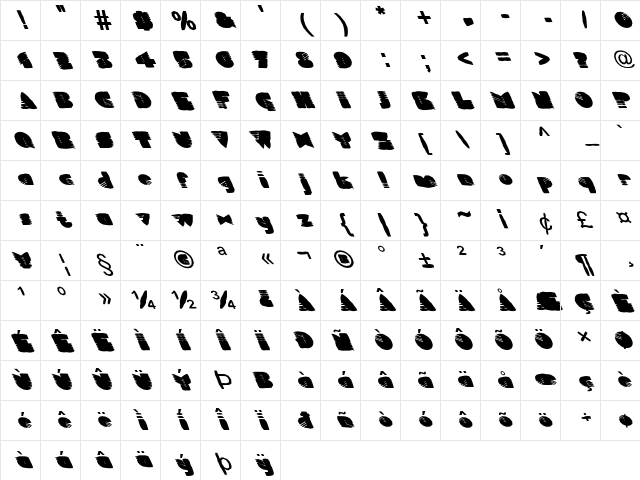
Complete FZ UNIQUE 11 MANGLED LEFTY Normal glyph index. Displaying only characters natively supported by FZ UNIQUE 11 MANGLED LEFTY Normal font.
FZ UNIQUE 11 MANGLED LEFTY is a composed and adaptable typeface that performs quietly and consistently across a wide range of design contexts.